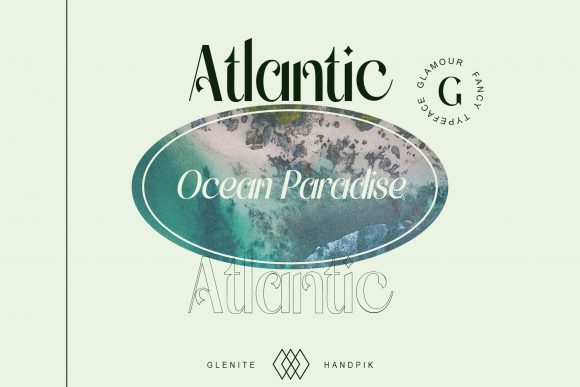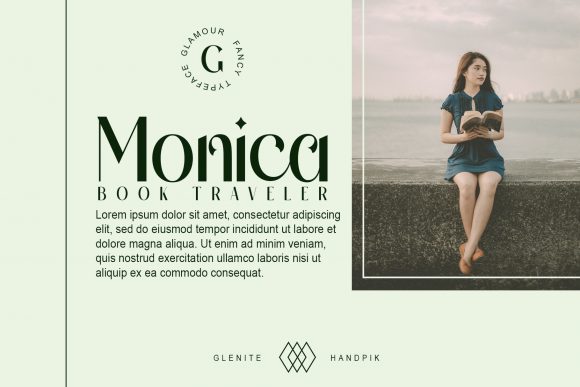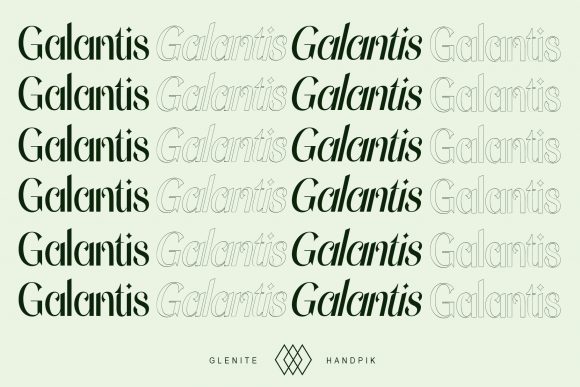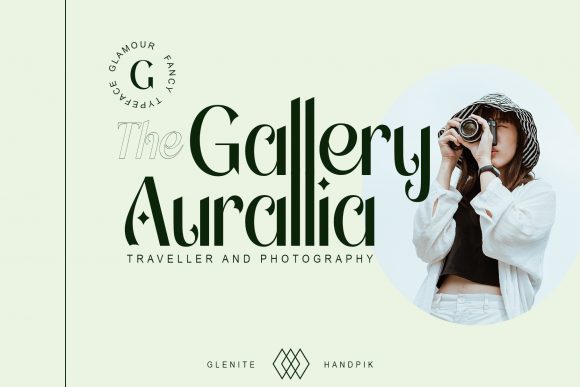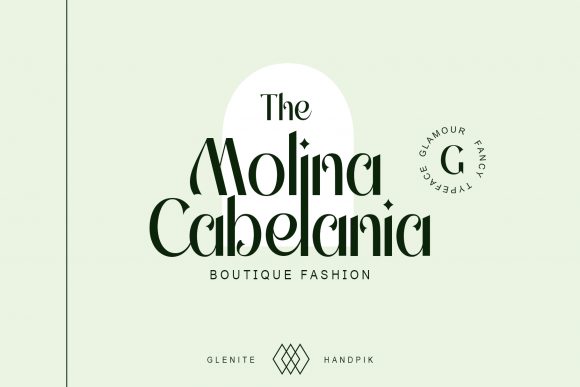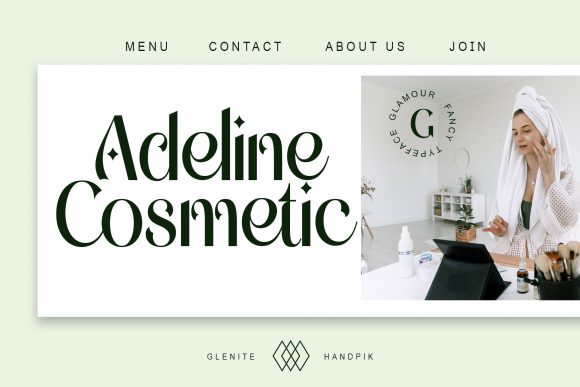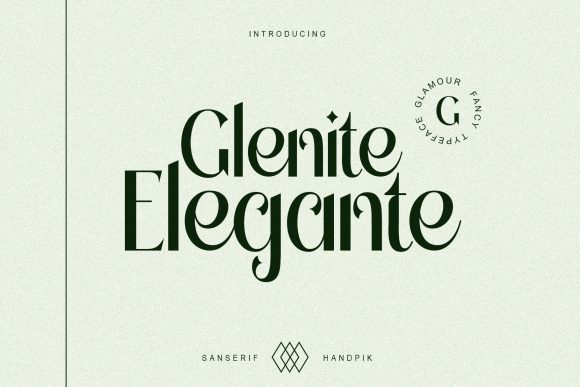
Glenite Elegante Font: Elevate Your Designs with Delicate Sophistication
In the world of typography, fonts play a crucial role in conveying the tone and personality of a design. For crafters and designers seeking to add a touch of elegance and refinement to their creations, Glenite Elegante is an exceptional choice. This delicate and refined serif font is meticulously crafted to bring a high level of detail and sophistication to any project.
The Characteristics of Glenite Elegante
Glenite Elegante is a serif font that exudes a sense of luxury and precision. Its delicate lines and curves are carefully designed to create a sense of harmony and balance, making it perfect for designs that require a touch of sophistication. The font’s neat and highly detailed structure ensures that it remains legible and clear, even at smaller sizes.
Why Choose Glenite Elegante?
Whatever the topic or theme of your design, Glenite Elegante has the potential to enhance any creation. Here are a few reasons why this font should be a valuable addition to your font library:
- Versatility: Glenite Elegante’s classic and timeless design makes it suitable for a wide range of applications, from luxury branding and advertising to packaging and editorial design.
- Elegance: The font’s delicate and refined features add a touch of sophistication to any design, making it perfect for high-end projects that require a level of luxury and refinement.
- Legibility: Despite its intricate details, Glenite Elegante remains highly legible, ensuring that your message is communicated clearly and effectively.
Applications of Glenite Elegante
Glenite Elegante’s versatility and elegance make it an excellent choice for a variety of design applications. Here are a few examples:
- Luxury Branding: Use Glenite Elegante to create a sophisticated brand identity that exudes luxury and refinement.
- Editorial Design: Add a touch of elegance to your editorial designs, such as magazines, newspapers, and books, with Glenite Elegante’s classic and timeless design.
- Packaging Design: Elevate your packaging designs with Glenite Elegante’s delicate and refined features, perfect for high-end products and luxury goods.
- Advertising: Use Glenite Elegante to create eye-catching and sophisticated advertisements that capture the attention of your target audience.
Tips for Using Glenite Elegante
To get the most out of Glenite Elegante, here are a few tips to keep in mind:
- Pair with contrasting fonts: Combine Glenite Elegante with contrasting fonts to create visual interest and add depth to your design.
- Experiment with sizes: Play with different font sizes to create a hierarchy of information and add emphasis to key elements.
- Pay attention to spacing: Ensure that your design has sufficient spacing to allow Glenite Elegante’s delicate features to shine.
Glenite Elegante is a delicate and refined serif font that offers a level of sophistication and elegance to any design. Its versatility, legibility, and timeless design make it an excellent addition to any font library. Whether you’re a designer or crafter, Glenite Elegante is sure to become a valuable asset in your creative endeavors.
With its intricate details and classic design, Glenite Elegante is the perfect choice for projects that require a touch of luxury and refinement. So why not elevate your designs with Glenite Elegante and experience the power of elegant typography?